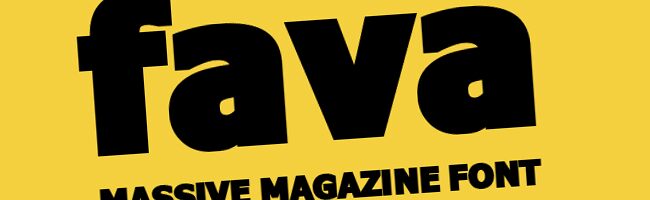
Fava Black by Themnific is a free ultra-heavy sans serif with broad, tightly packed letters, near-solid joins, and an emphatic silhouette that feels almost architectural. Blunt endings and rounded bowls keep it slightly playful.
Brands aimed at young, energetic audiences can use it for sportswear identities, music posters, and snack packaging. Its bulky curves also suit mascot lettering on event merchandise and game graphics, echoing inflated cartoon shapes and padded mascot costumes.